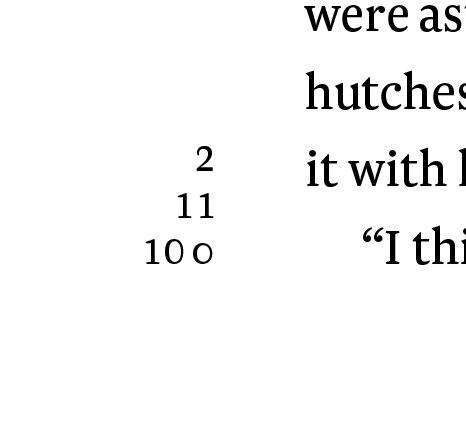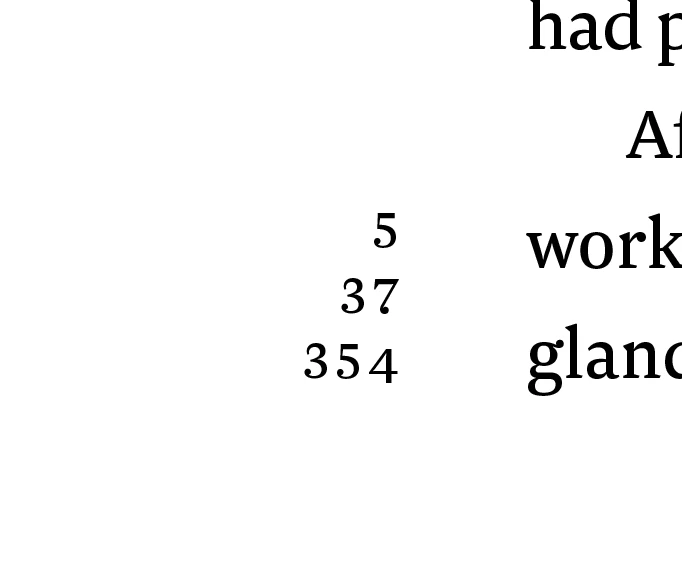
Page Numbers Displaying Mixed Lining and Non-Lining Numerals When Using Newzald Font in InDesign
I have an issue with InDesign. On my parent pages I have a text box which contains the marker 'current page number'. The numbers are viewing as expected up to page 99. When we get to page 100 and above, the third (last/units) number displays as non-lining when the rest are lining numerals. Why is this happening? Screen-shots attached.
This only happens when using the typeface Newzald… and not if I replace that typeface with something like Minion.
The para and char style both state tabular lining.
I suspect the font as well. Does it behave differently if you apply something other than Tabular Lining, e.g. Proportional Lining?  Toggle your Style Override and see if that shows something overriding your Para Styles.
In any case, I poked into the font and the designers have assigned Oldstyle figures as Default, which is kinda opposite of what would be normal in other fonts, so I’m thinking that’s confusing InDesign and giving you an Oldstyle “zero” instead of a normal “zero”.
Can you share a sample file?
Text variables don’t wrap properly. If the frame in which you are adding the page number is small for rendering 3 digit numbers for the font in question then this could be the cause of the problem. Try once by increasing the size of the frame.
And does it happen when you type the same numbers manually?
Out of curiosity I downloaded the Newzald test fonts, and I can’t reproduce this (at least when typing manually):
Try a couple other fonts. If they display properly, it’s a problem with the font.
If it happens with other fonts, let us know.